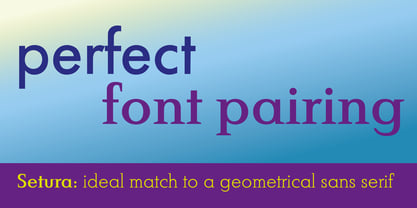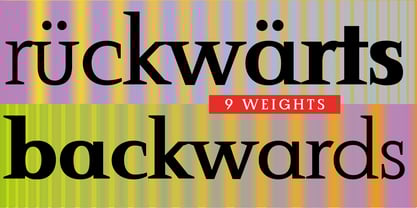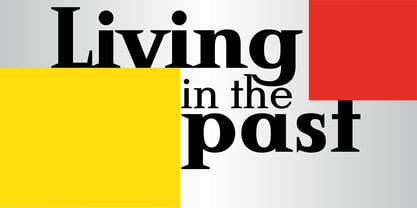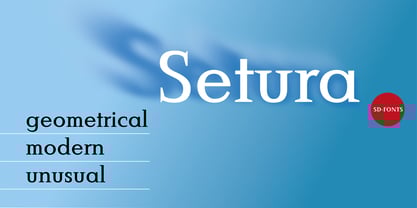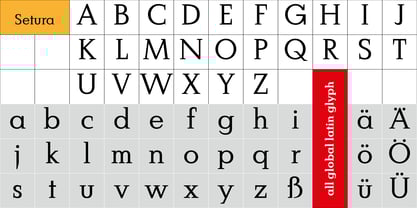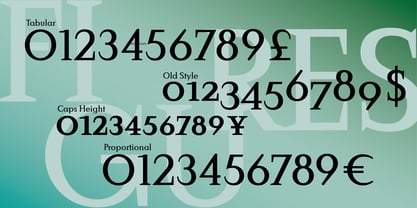
Setura
by SD Fonts
The Setura Font Family was designed by Hartmut Schaarschmidt and published by SD Fonts. Setura contains 9 styles and family package options.
Setura – geometrical, modern, unusual.
Setura is the perfect match for geometrical sans serifs like Futura, Avenir and many others. Its characters are based on circles, triangles and squares and in addition a small x-height contributes to its typical geometrical look quite unusual to serif fonts. Thus Setura is not a common serif, but a vivid outstanding typeface. It’s kind of old style without being old style.